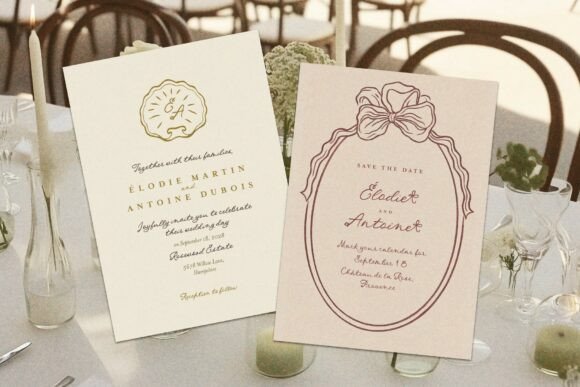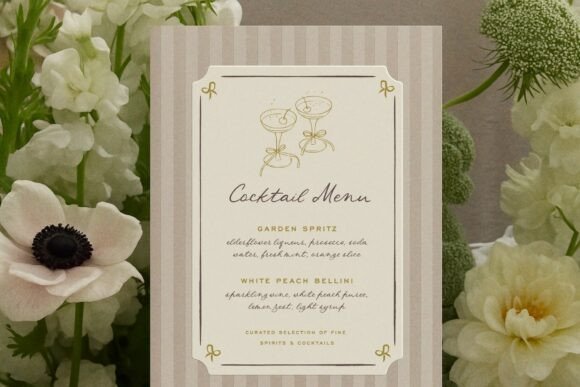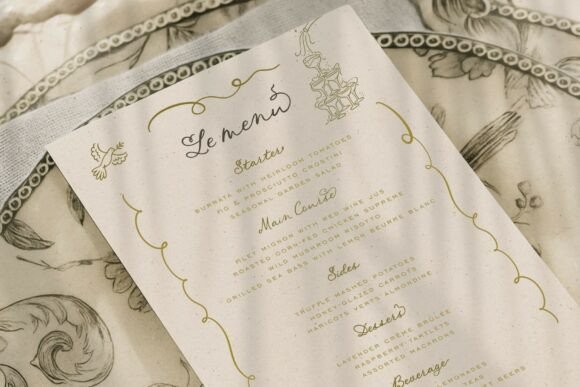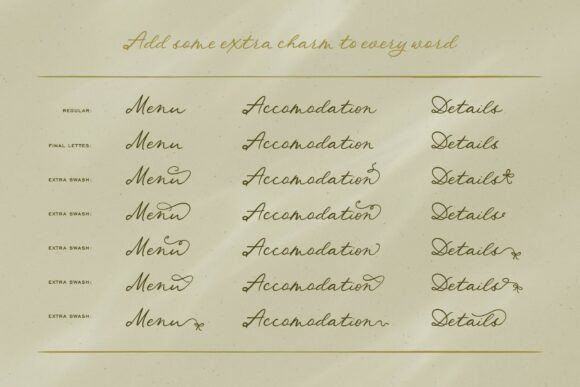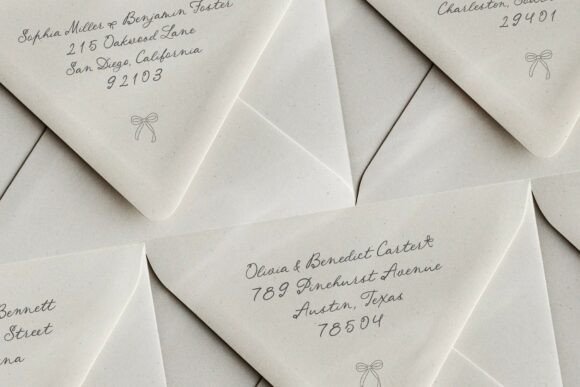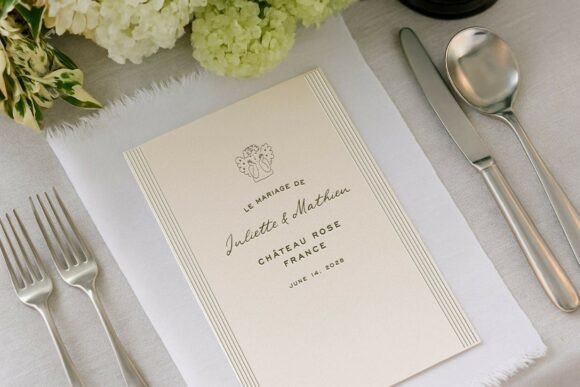
Fairy Bloom Font: Add a Touch of Whimsy to Your Designs
Are you looking for a font that can add a romantic and whimsical touch to your designs? Look no further than Fairy Bloom, a beautiful handwritten script font that is sure to bring a lighthearted yet refined feel to your projects. With its modern calligraphy charm and elegant features, Fairy Bloom is the perfect choice for designers and crafters who want to create something truly magical.
The Characteristics of Fairy Bloom
Fairy Bloom is a romantic handwritten script font that features a whimsical, airy flow and modern calligraphy charm. The font is designed to bring a sense of elegance and sophistication to your designs, while still maintaining a playful and carefree feel. With two sets of uppercase letters, alternate lowercase endings, elegant swashes, and charming ligatures, Fairy Bloom is full of personality and versatility.
Perfect for Wedding Invitations and Signage
Fairy Bloom is particularly well-suited for wedding invitations, signage, and other creative projects where a touch of romance and whimsy is desired. The font’s elegant swashes and charming ligatures make it perfect for creating beautiful and eye-catching titles, headings, and body text. Whether you’re designing a wedding invitation, a party banner, or a social media graphic, Fairy Bloom is sure to add a touch of magic to your design.
Key Features of Fairy Bloom
- Two sets of uppercase letters: Fairy Bloom features two sets of uppercase letters, giving you plenty of options for creating unique and eye-catching titles and headings.
- Alternate lowercase endings: The font also features alternate lowercase endings, which allow you to add a touch of elegance and sophistication to your designs.
- Elegant swashes: Fairy Bloom’s elegant swashes are perfect for creating beautiful and eye-catching titles and headings.
- Charming ligatures: The font’s charming ligatures add a touch of whimsy and romance to your designs, making them perfect for wedding invitations and other creative projects.
Why Choose Fairy Bloom?
So why choose Fairy Bloom for your design projects? Here are just a few reasons:
- Unique and eye-catching: Fairy Bloom is a unique and eye-catching font that is sure to add a touch of personality to your designs.
- Versatile: The font is versatile and can be used for a wide range of design projects, from wedding invitations to signage and social media graphics.
- Elegant and refined: Fairy Bloom has an elegant and refined feel that is perfect for creating sophisticated and eye-catching designs.
How to Use Fairy Bloom
Using Fairy Bloom is easy. Here are a few tips:
- Use it for titles and headings: Fairy Bloom is perfect for creating eye-catching titles and headings. Try using it for your next design project.
- Experiment with different colors and textures: To add an extra touch of whimsy to your designs, try experimenting with different colors and textures.
Fairy Bloom is a beautiful and versatile font that is sure to add a touch of whimsy and romance to your designs. With its modern calligraphy charm and elegant features, it’s the perfect choice for designers and crafters who want to create something truly magical. Whether you’re designing a wedding invitation, signage, or social media graphic, Fairy Bloom is sure to bring a lighthearted yet refined feel to your project.